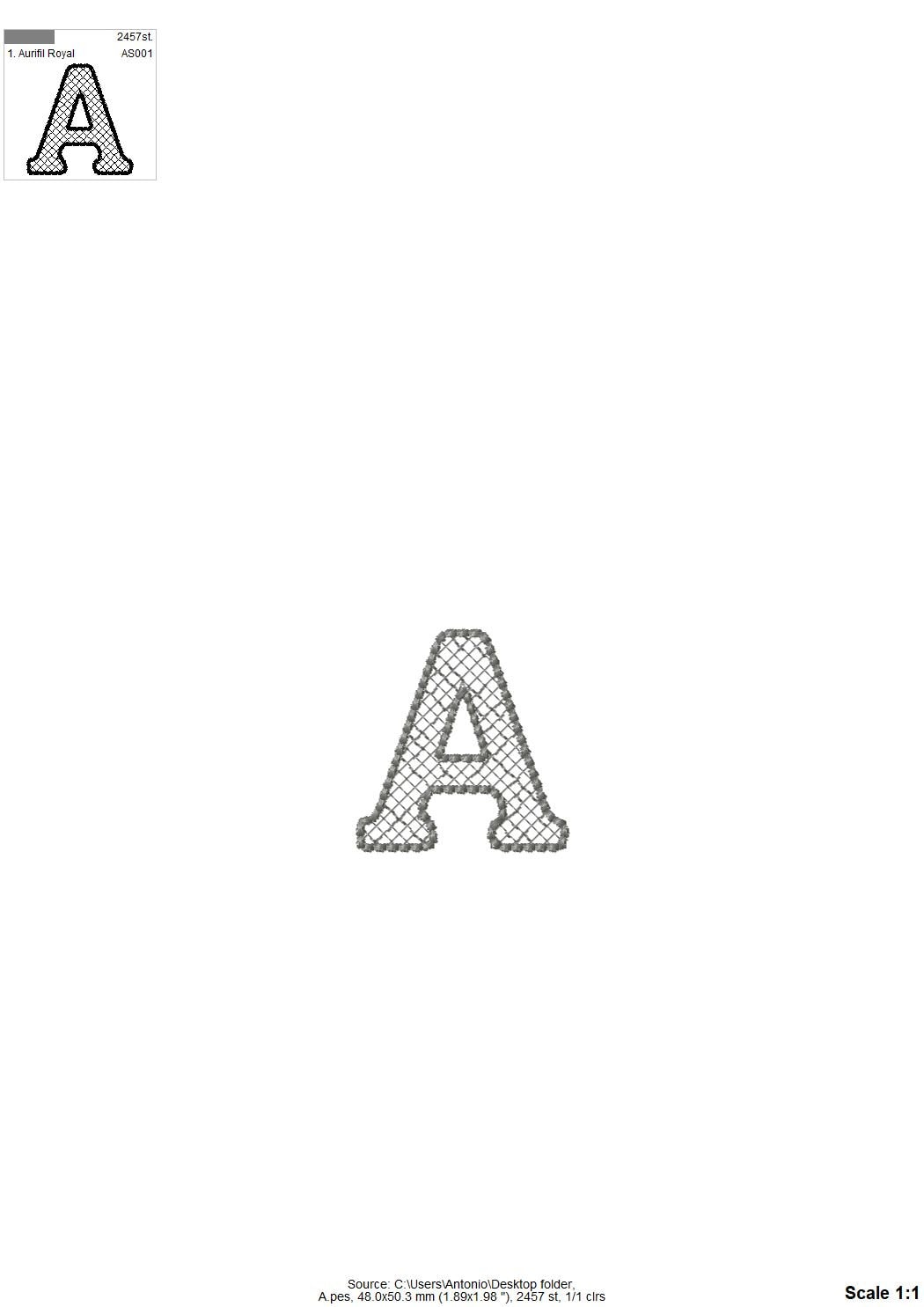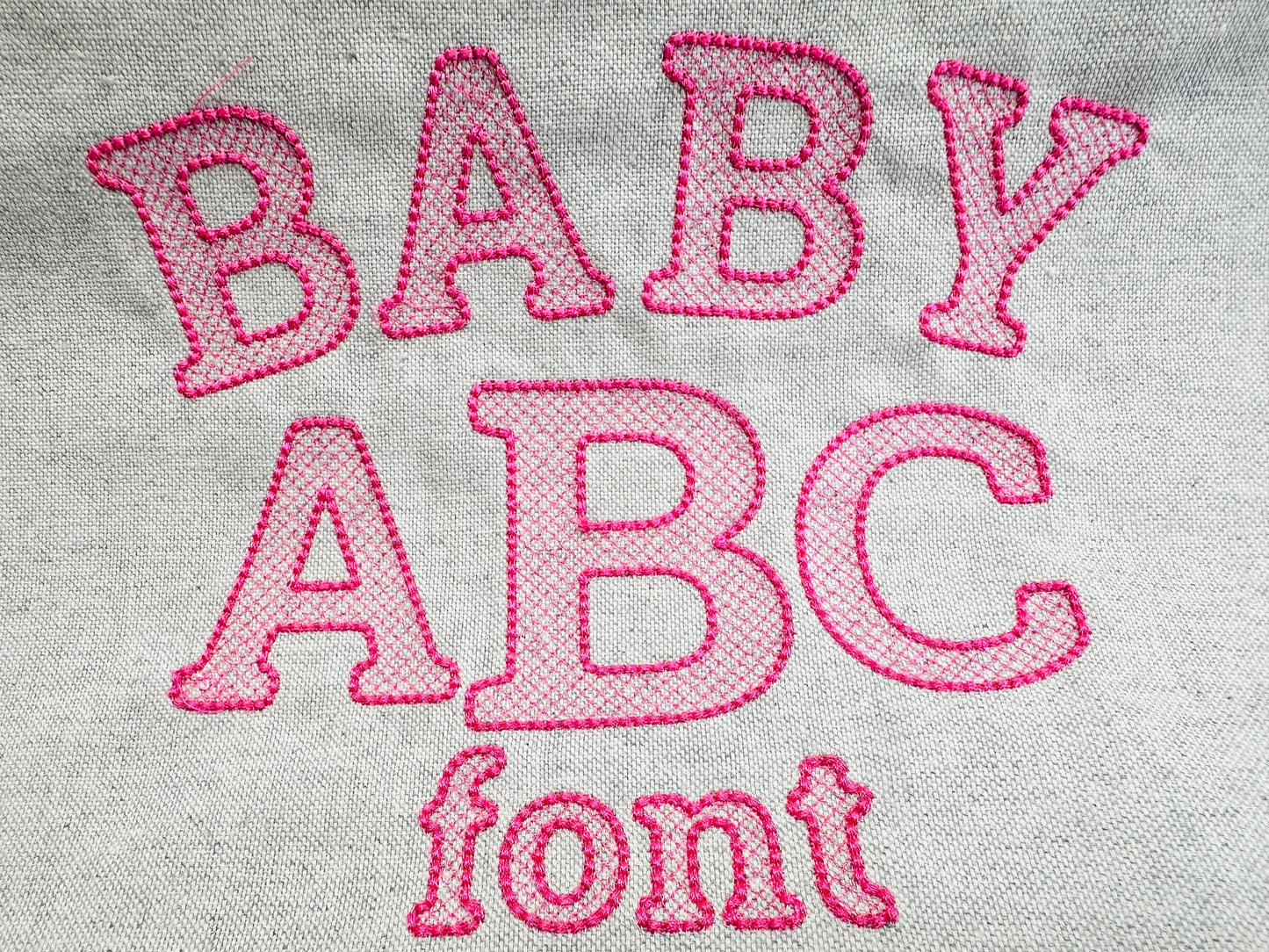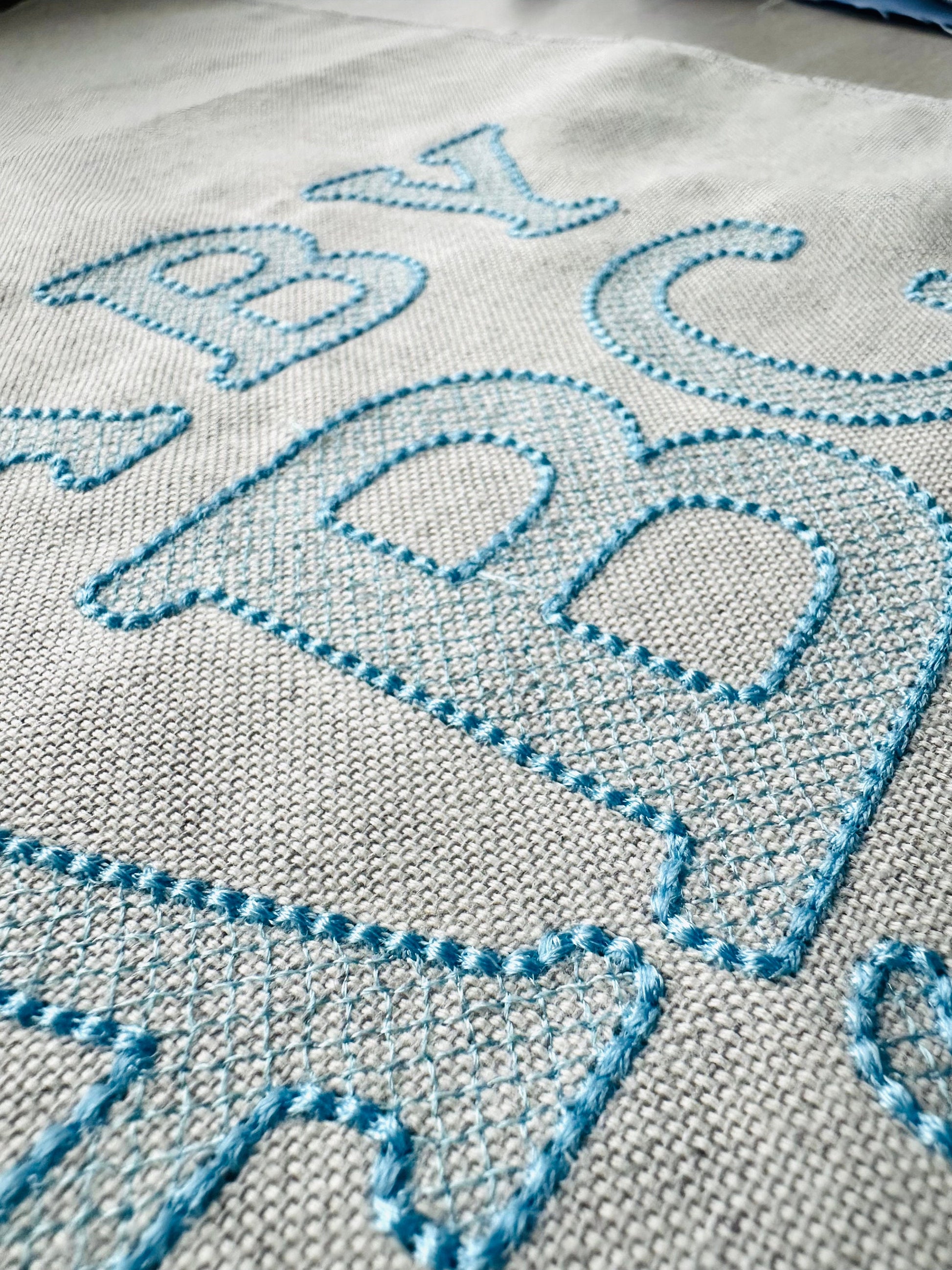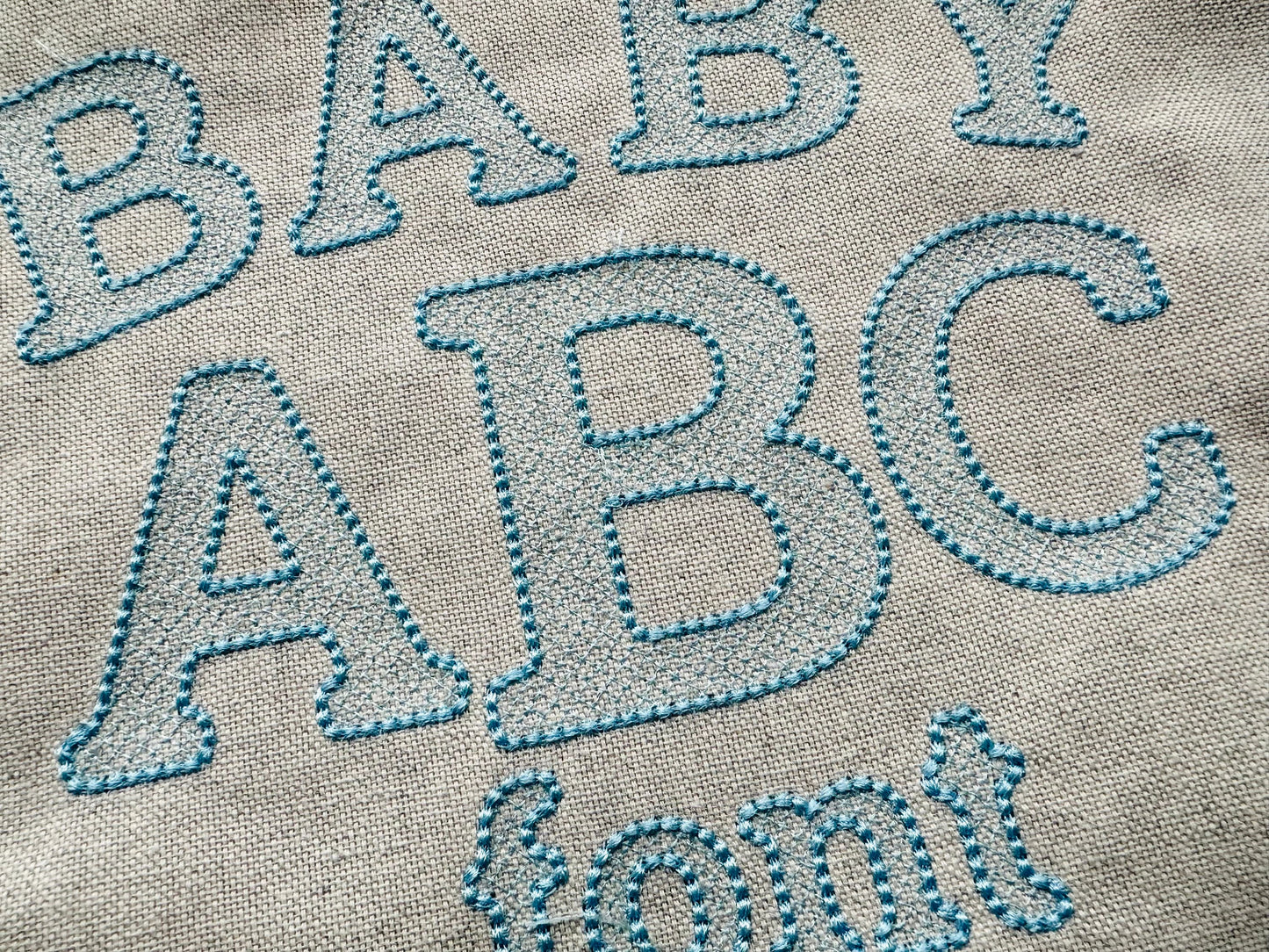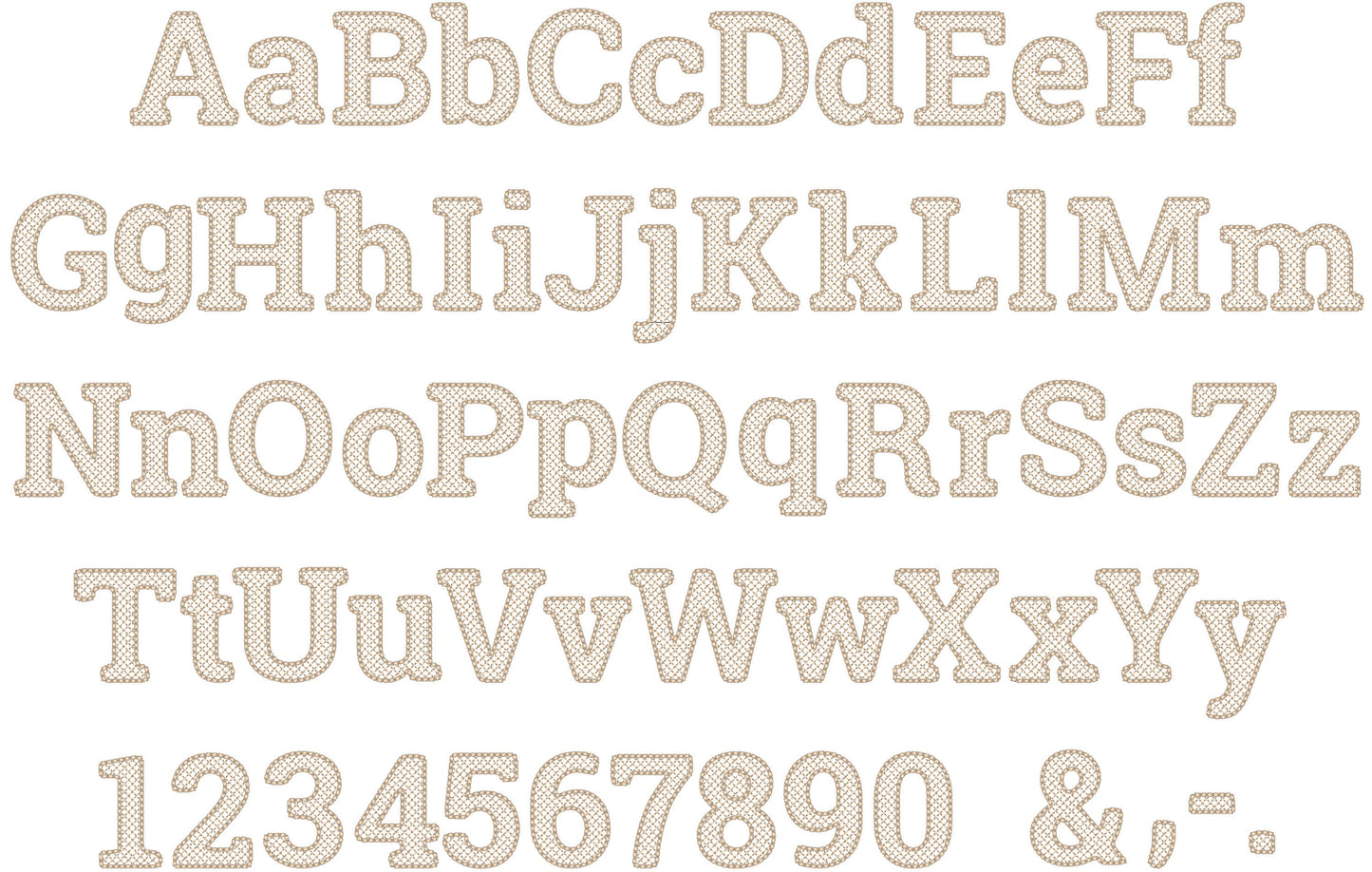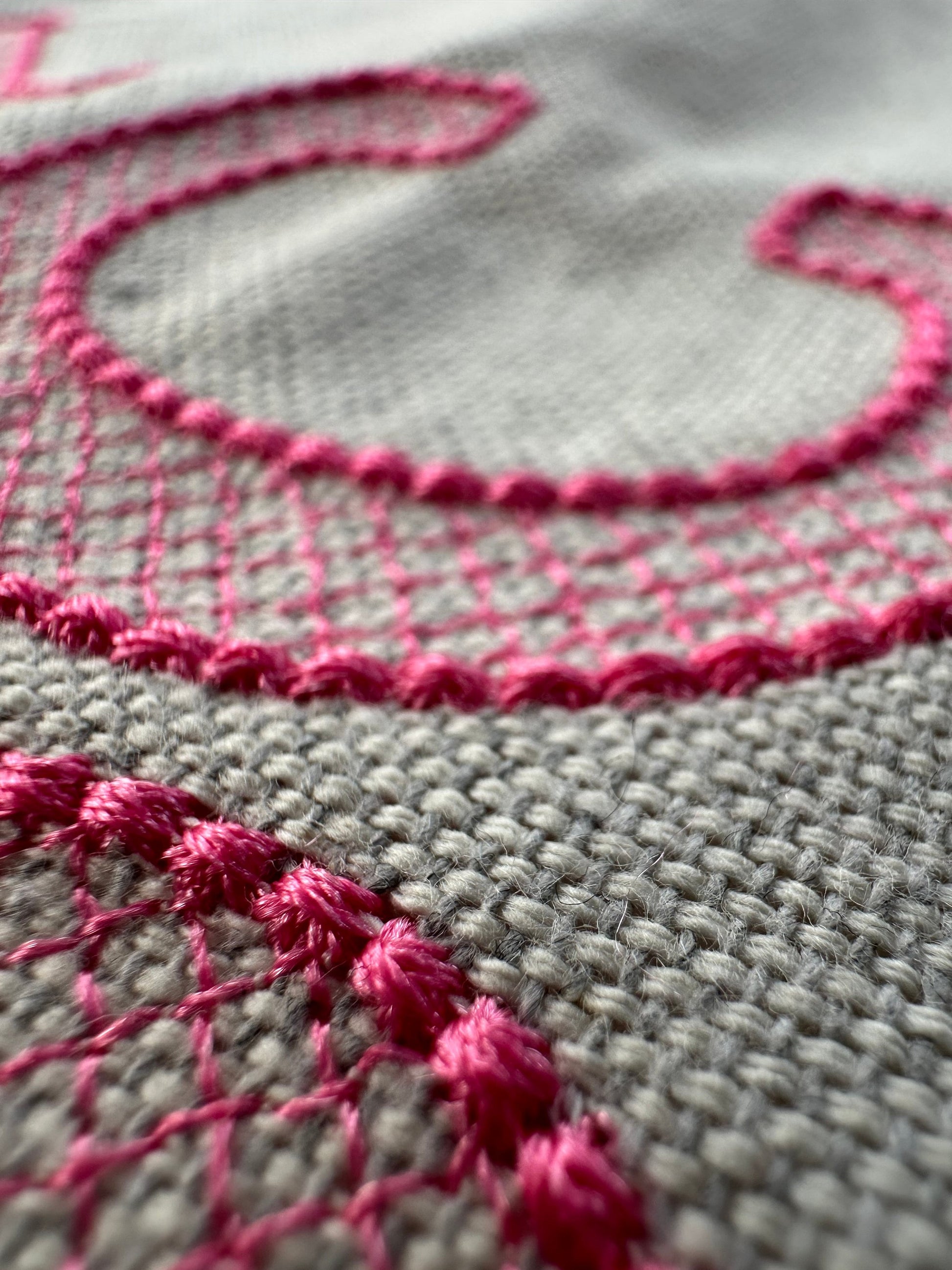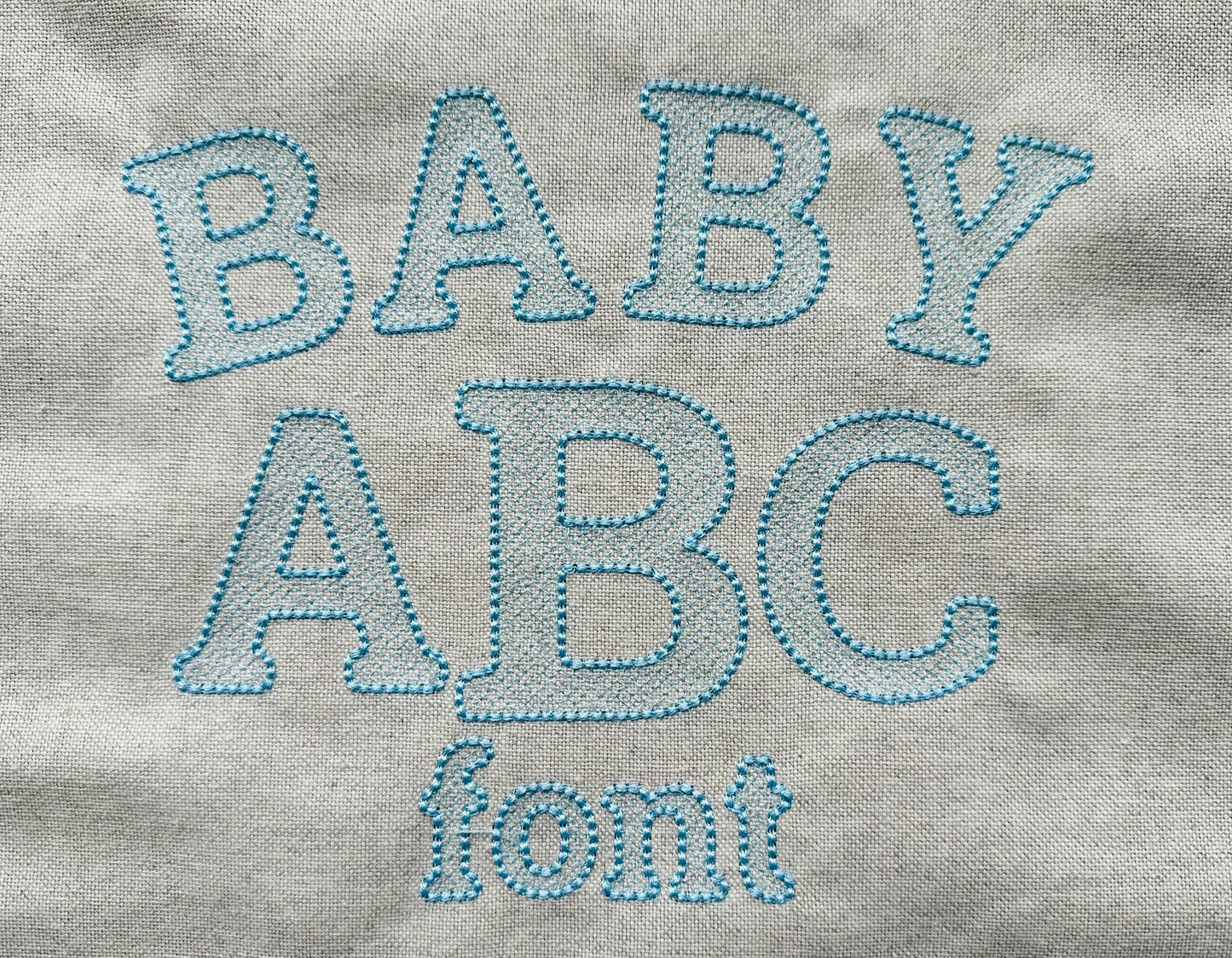
The stitching is beautiful! I really love all the stuff from Artapli. It’s just a shame that I’m not getting any answers to my questions. Only an auto reply;((
I loved how it stitched out! Unique and professional looking!
Stitched out beautifully. I will be ordering more files.
This embroidered beautifully. I like the design.
Loved this font!! So fun!
Stitched out beautifully, thank you
Stitched out beautifully! Perfect for what I needed!
So nice. Lovely. As described and met my needs
Sewn perfect. I love it
I really like this font. It's smooth and neat.
Great stitch out love the design
Loved how it sewed out
this font is beautiful and can be used for many different projects!
LOVE LOVE LOVE!! This is an amazing font and so well done!
Stitched out great. Would recommend
Very cute font for my fam
Love this beautiful font. Would recommend.
I absolutely love this font. It looks so pretty on a onesie for my grandson.
sewed out on an item for a baby gift. loved how it sewed out. Would definitely recommend
This is a wonderful piece
Love it! Easy stitch out. So cute on a baby outfit!🩵
Excellent sew out! Highly recommend!
Great design that stitches out so beautifully. Love this design!
sewed out awesome on burp cloths
Great pattern. Worked out perfect
I fell in love with this style. So much you can use it on
stitched out great thanks abunch
Her fonts are always top notch!
The stitch was as described..
Sewed up great. Perfect for my BIG SIS shirt I was making to take to a baby shower.
High quality font and easy.
Unique stitching worked great met my expectations